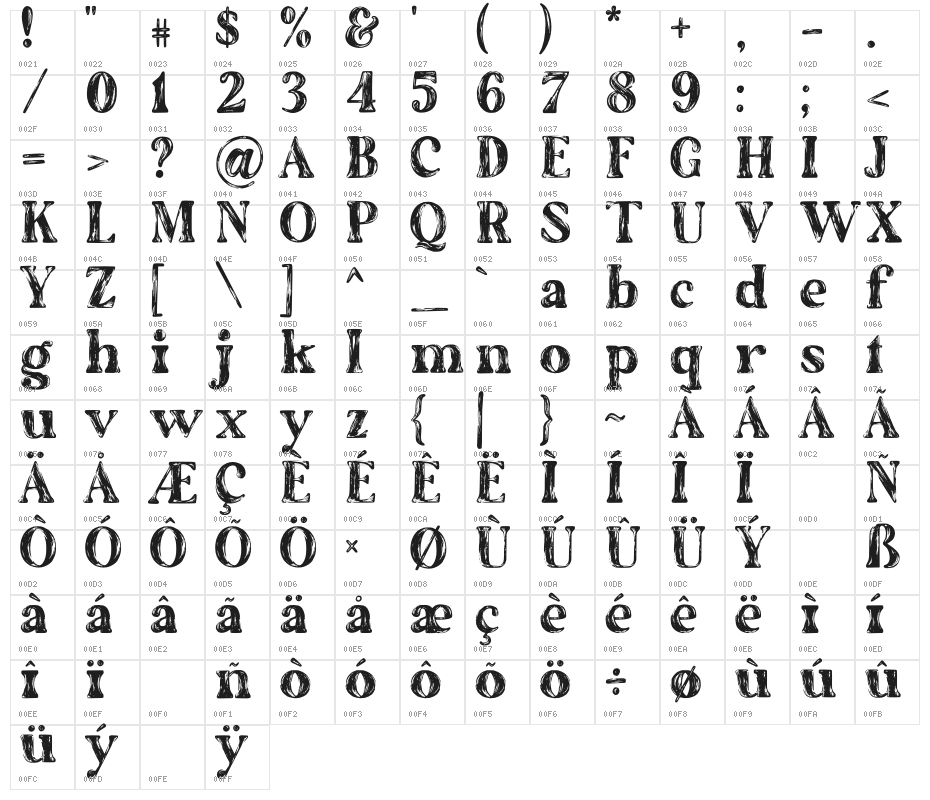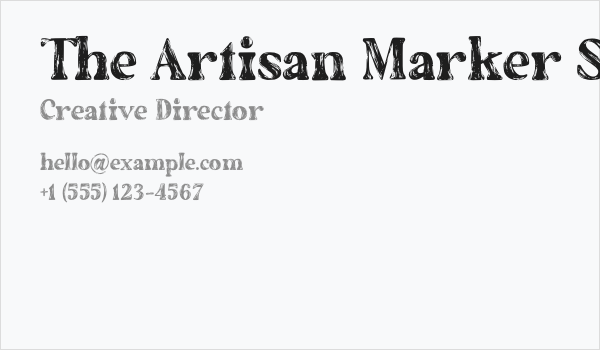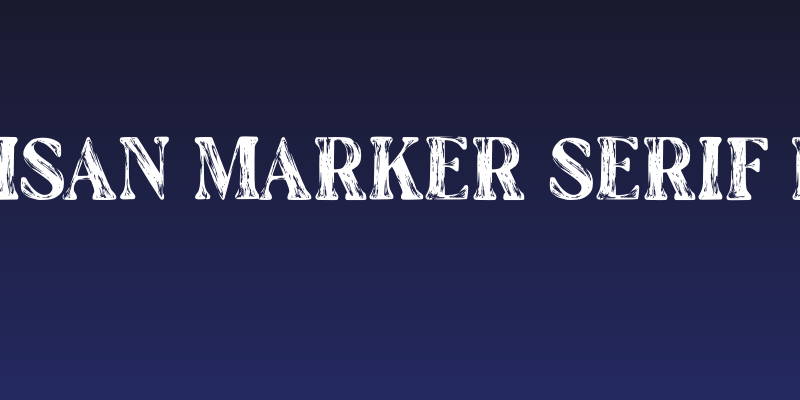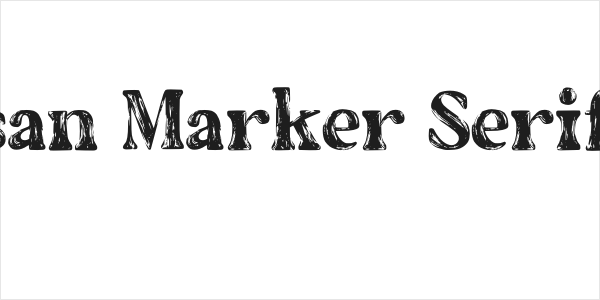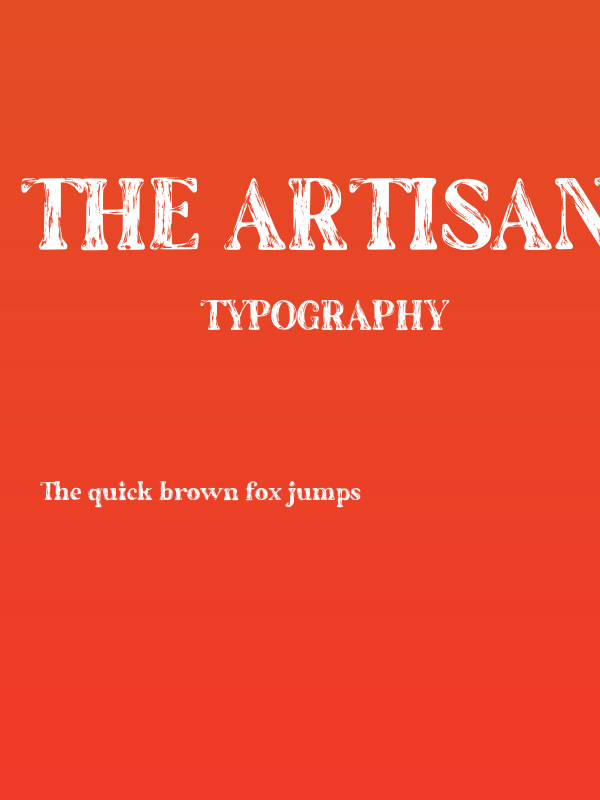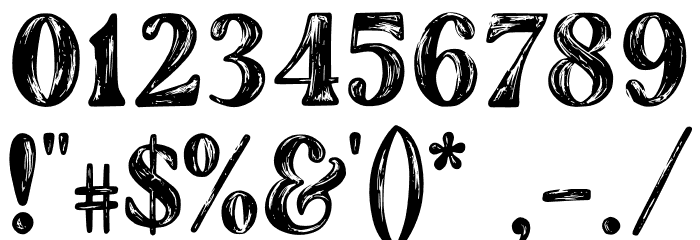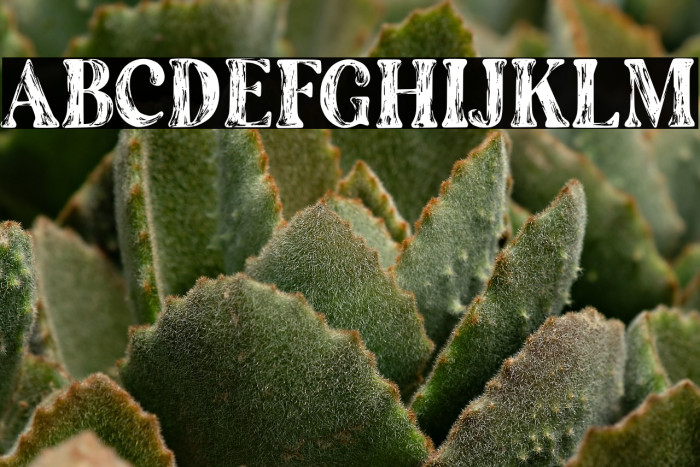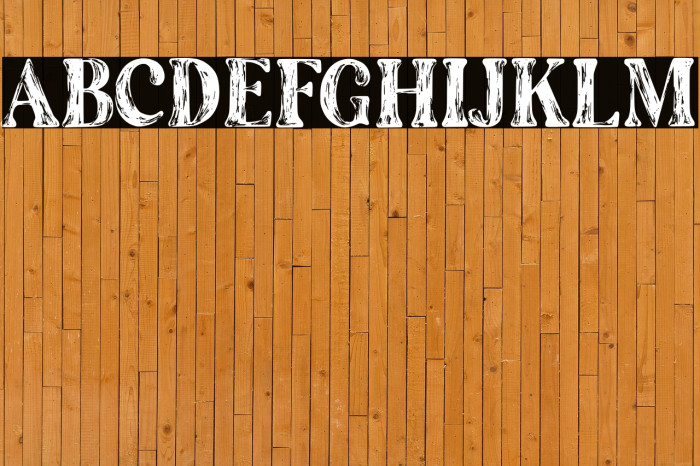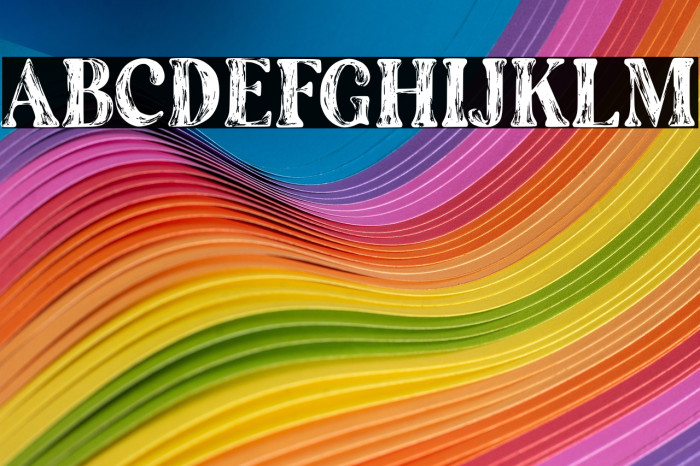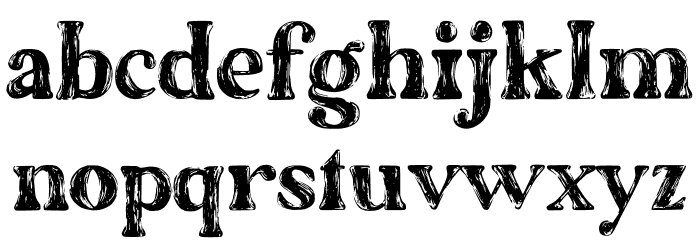
The Artisan Marker Serif Regular Font
The Artisan Marker Serif Regular Description
This font features a bold and artistic style with a hand-drawn appearance. Each character is crafted with a textured, brush-like effect, giving it a unique and organic feel. The serif elements add a touch of classic elegance, while the irregular strokes and varying thicknesses create a dynamic and lively impression. The uppercase and lowercase letters maintain a consistent design, ensuring readability while retaining their artistic flair. Numbers and special characters are equally expressive, making this font versatile for creative projects. Its distinct style is perfect for capturing attention and conveying a sense of handcrafted artistry.
| Proposed Projects | Ideal for branding, packaging, posters, and artistic invitations. |